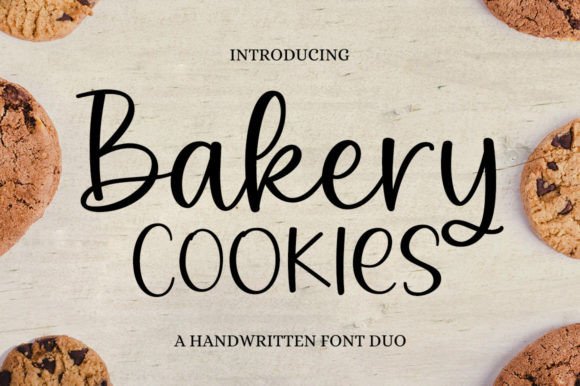
Bakery Cookies Font: A Chic and Cheery Addition to Your Crafts
The world of typography is vast and exciting, with numerous fonts available to suit various design needs. If you’re looking for a font that can add a touch of chic and cheery to your crafts, look no further than the Bakery Cookies font. This delightful font consists of two complementary fonts designed to work together in perfect harmony. In this article, we’ll explore the Bakery Cookies font, its features, and how you can use it to elevate your designs.
What is Bakery Cookies Font?
Bakery Cookies font is a carefully crafted typeface designed to bring a sense of warmth and friendliness to your designs. It consists of two fonts: Bakery Cookies and Bakery Cookies Outline. These fonts are created to complement each other perfectly, allowing you to mix and match them to create visually appealing designs.
Key Features of Bakery Cookies Font
- Complementary Fonts: The Bakery Cookies font comes with two fonts that are designed to work together seamlessly.
- Chic and Cheery: The fonts feature a playful and upbeat design that’s perfect for adding a touch of personality to your crafts.
- High-Quality Design: The fonts are carefully crafted with attention to detail, ensuring a high level of readability and aesthetic appeal.
- Versatile: The Bakery Cookies font is suitable for a wide range of design applications, from digital projects to print materials.
Using Bakery Cookies Font in Your Crafts
The Bakery Cookies font is an excellent choice for crafters, designers, and DIY enthusiasts looking to add a personal touch to their projects. Here are some ideas for using this delightful font:
- Party Invitations: Create eye-catching party invitations that set the tone for a fun and celebratory event.
- Craft Blog Posts: Add a touch of personality to your blog posts with the Bakery Cookies font, making them more engaging and visually appealing.
- Social Media Graphics: Use the font to create social media graphics that stand out from the crowd and showcase your brand’s personality.
- DIY Projects: Add a professional touch to your DIY projects, such as handmade cards, gift tags, and more.
Tips for Pairing Bakery Cookies Fonts
One of the unique features of the Bakery Cookies font is the ability to pair the two fonts together for a stunning effect. Here are some tips for pairing the fonts:
- Use the Outline Font as a Accent: Use the outline font as an accent to add depth and visual interest to your designs.
- Mix and Match: Experiment with different font combinations to find the perfect balance for your design.
- Play with Sizes: Play with font sizes to create visual hierarchy and add emphasis to specific design elements.
Benefits of Using Bakery Cookies Font
Using the Bakery Cookies font in your designs offers several benefits, including:
- Unique and Eye-Catching: The font’s playful design ensures that your designs stand out from the crowd.
- Time-Saving: The font’s high-quality design saves you time and effort in creating professional-looking designs.
- Versatility: The font’s versatility makes it suitable for a wide range of design applications.
Where to Use Bakery Cookies Font
The Bakery Cookies font is suitable for various design applications, including:
- Digital Projects: Use the font in digital projects, such as social media graphics, blog posts, and more.
- Print Materials: Use the font in print materials, such as brochures, flyers, and business cards.
- Crafts: Use the font in various crafts, such as handmade cards, gift tags, and more.
In conclusion, the Bakery Cookies font is a delightful and versatile typeface that’s perfect for adding a touch of chic and cheery to your crafts. With its complementary fonts, high-quality design, and versatility, this font is an excellent choice for designers, crafters, and DIY enthusiasts. Whether you’re working on digital projects or print materials, the Bakery Cookies font is sure to elevate your designs and make them stand out from the crowd.